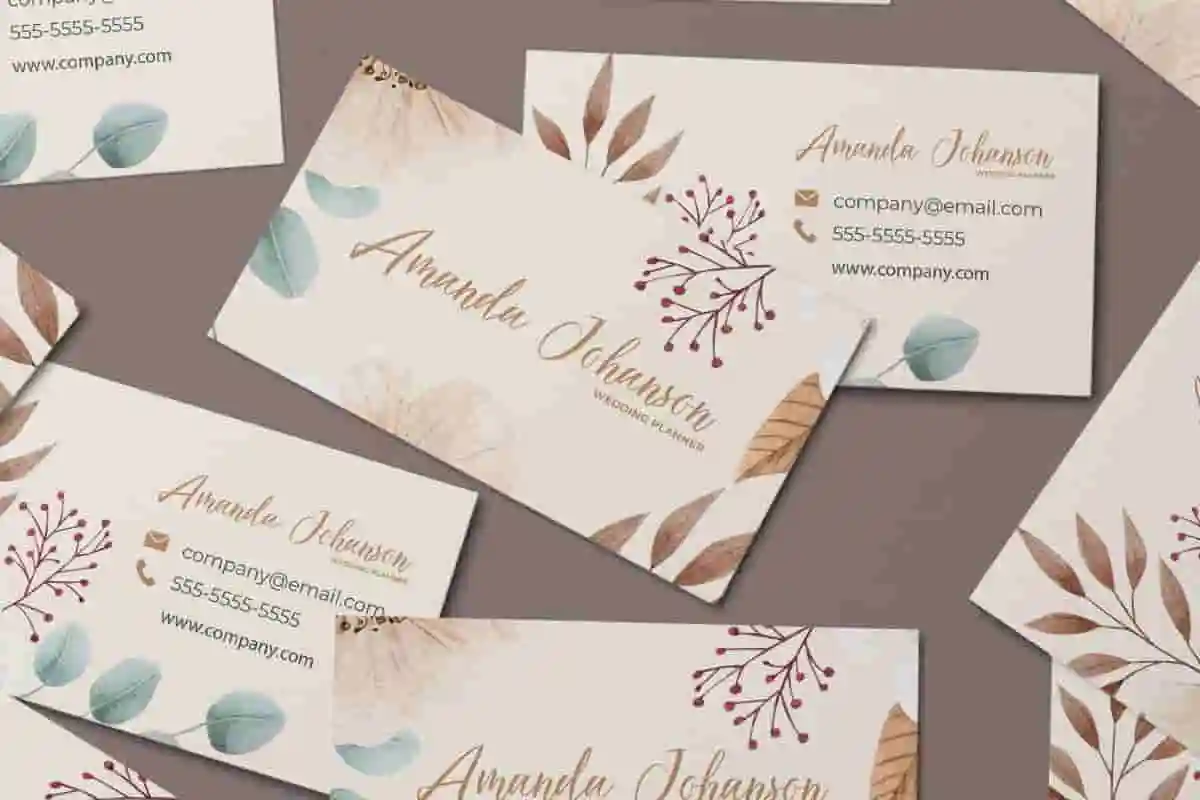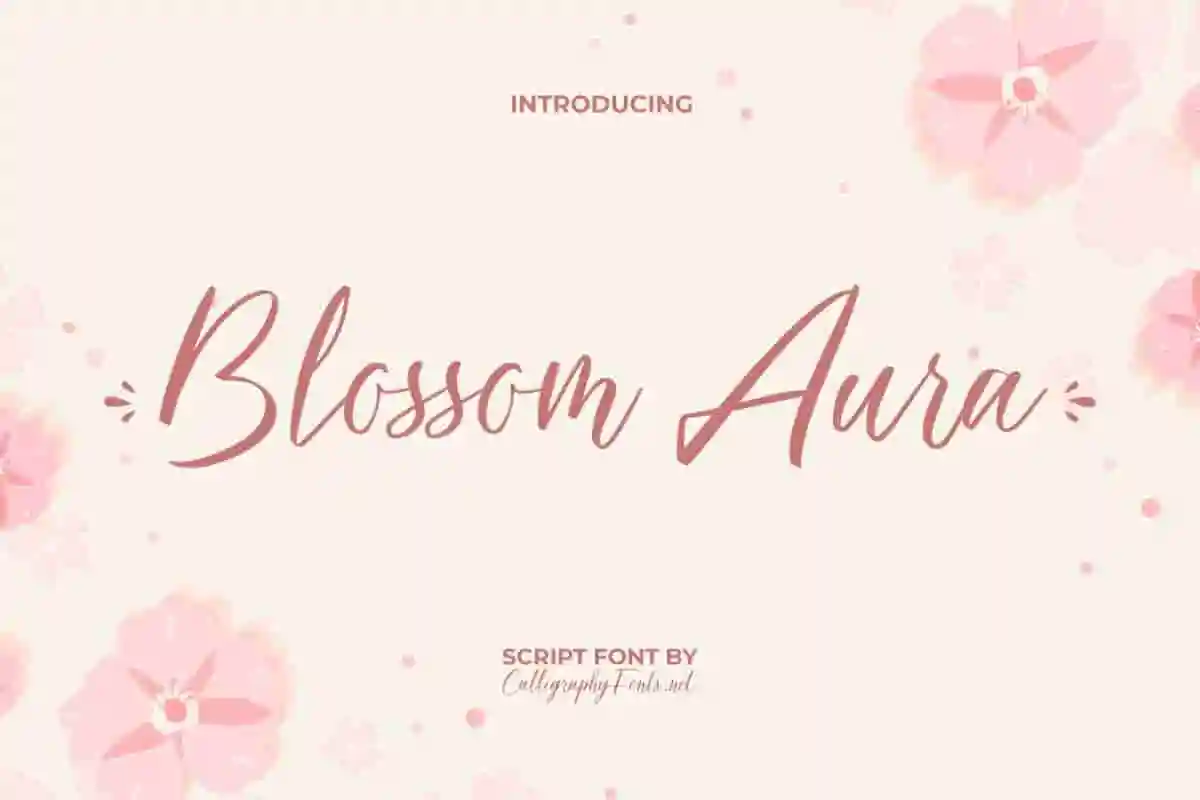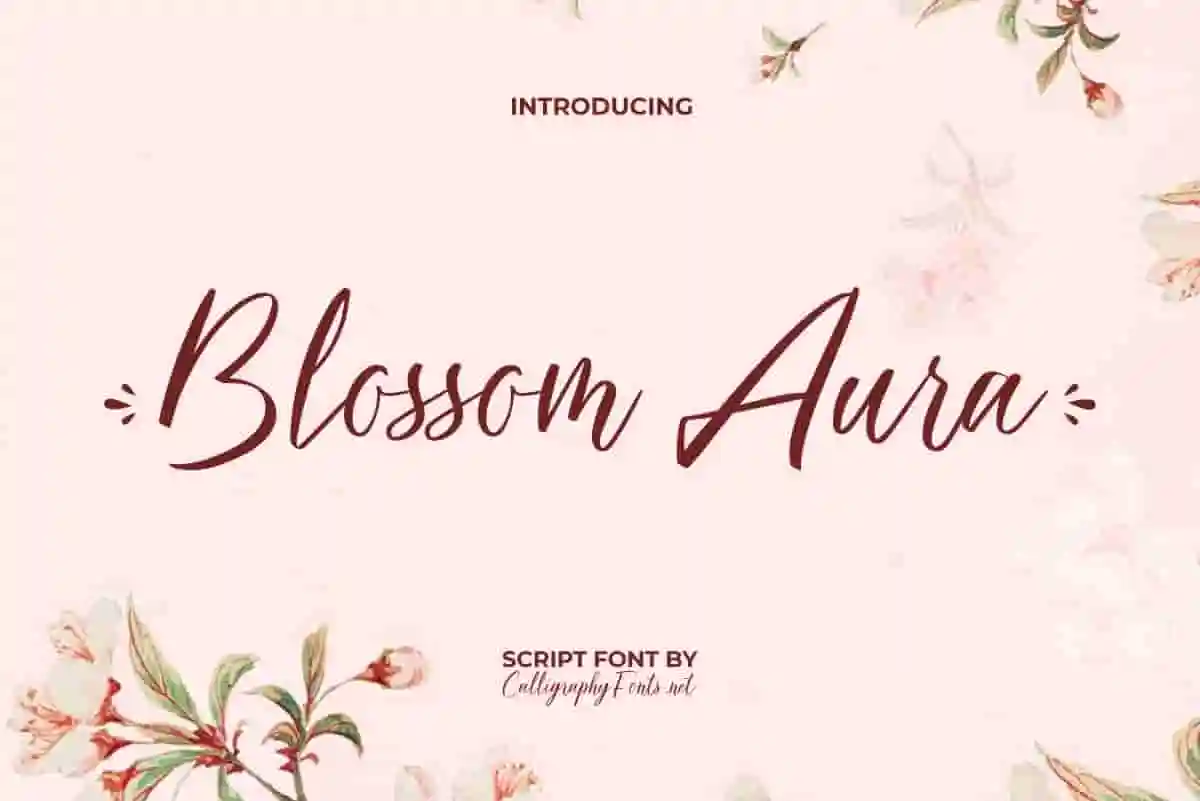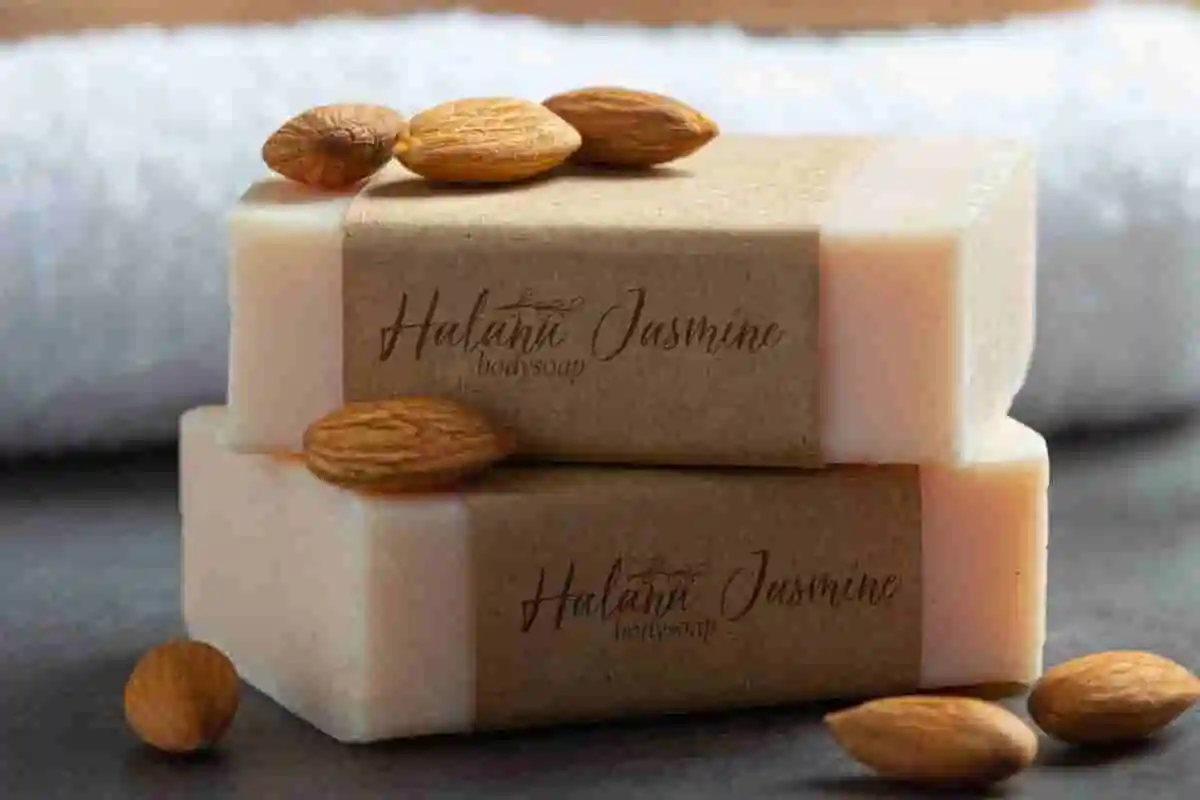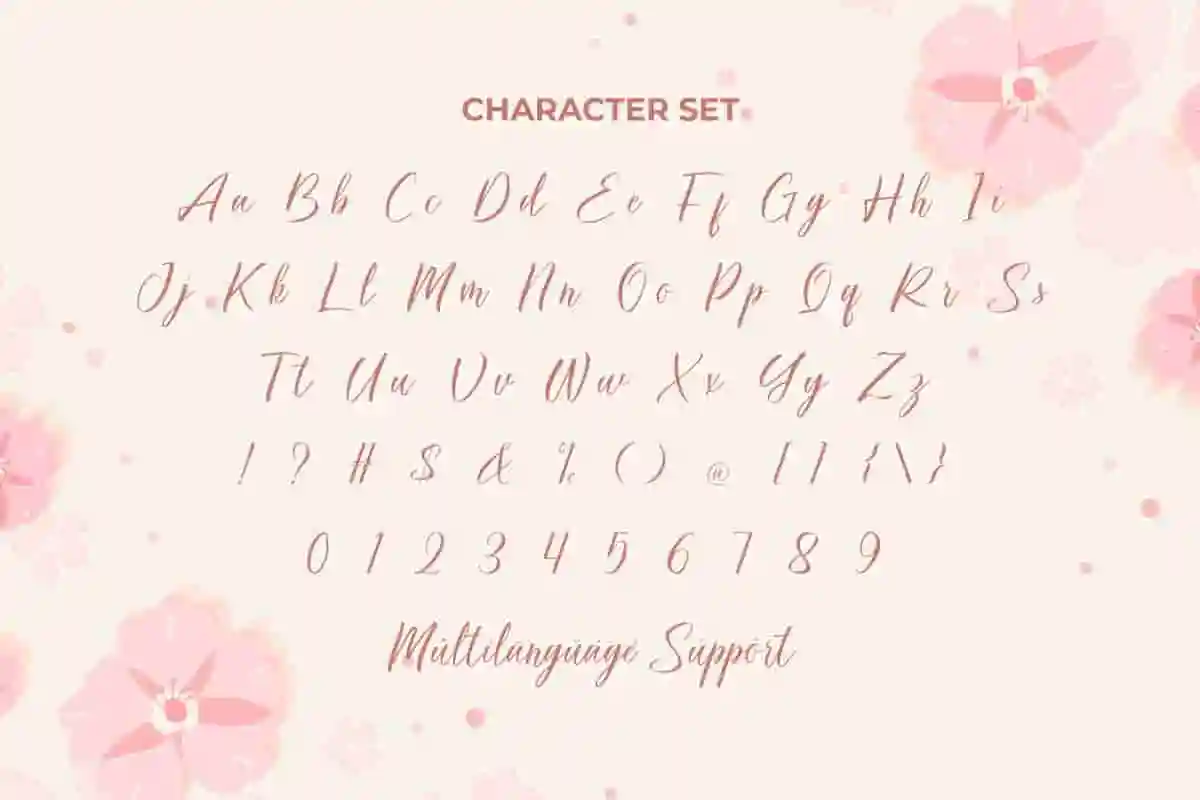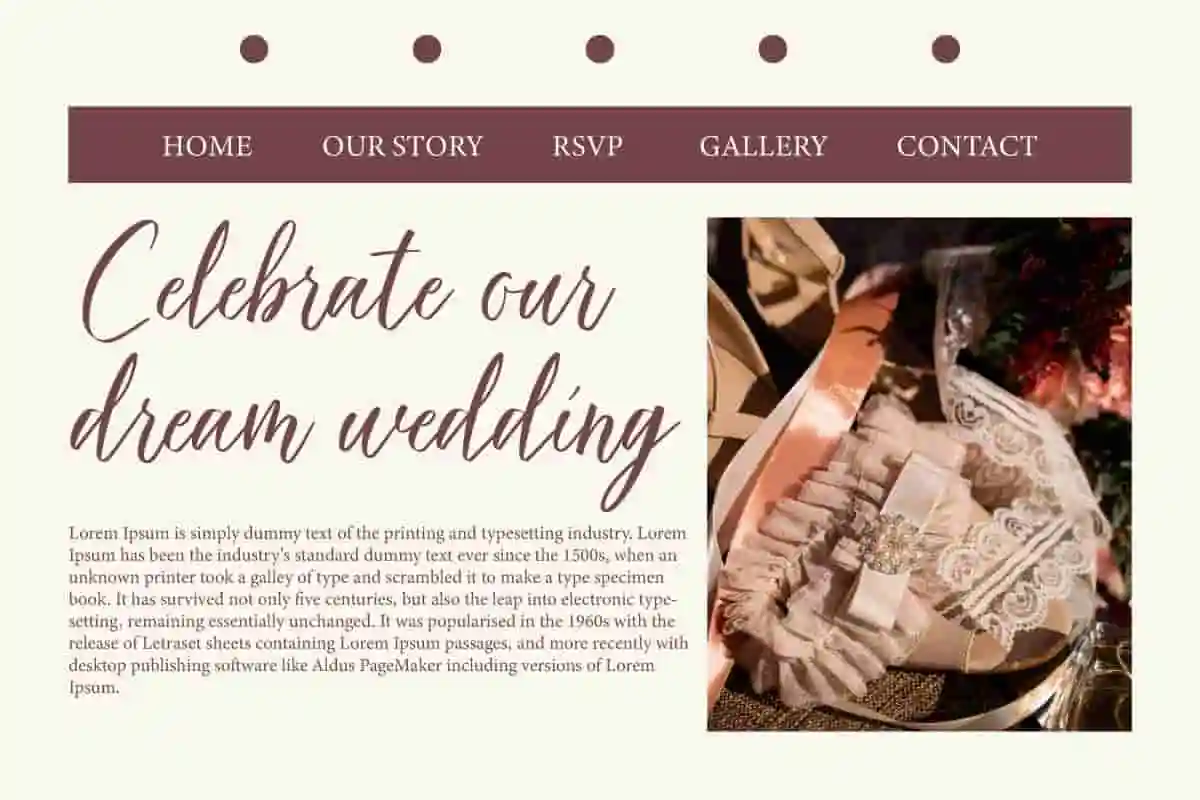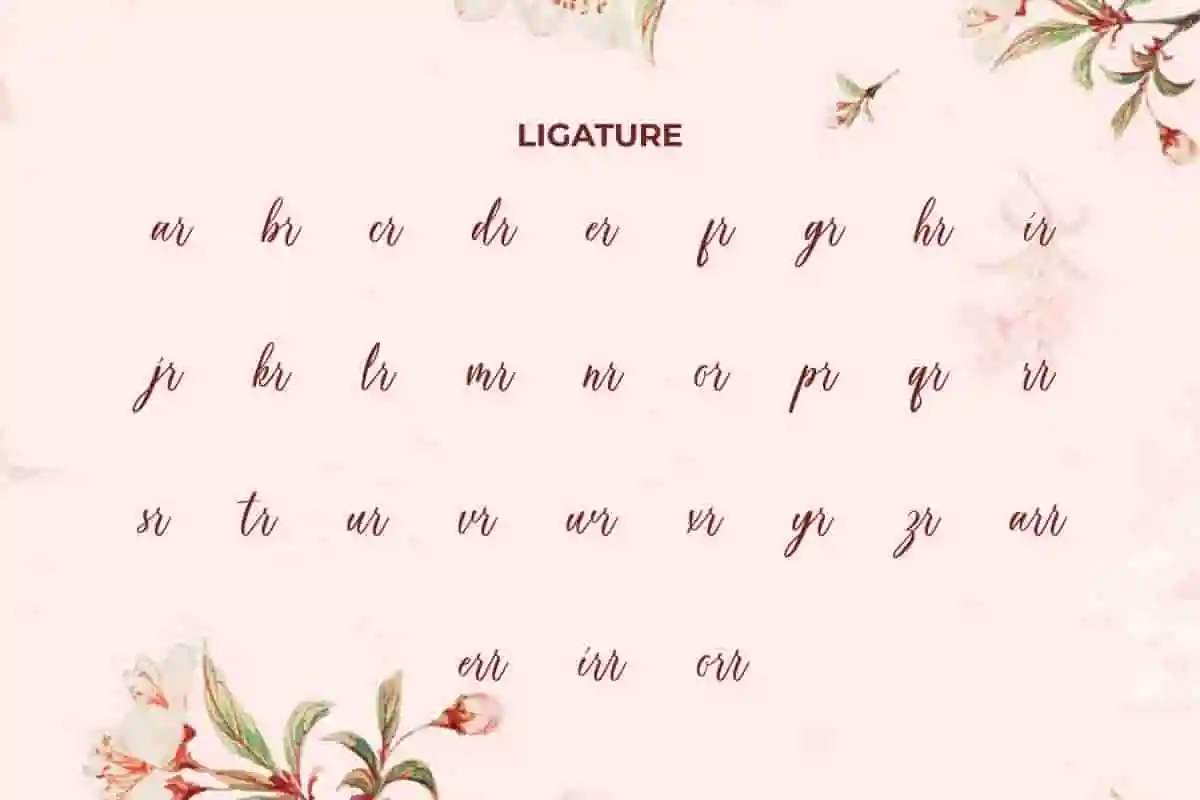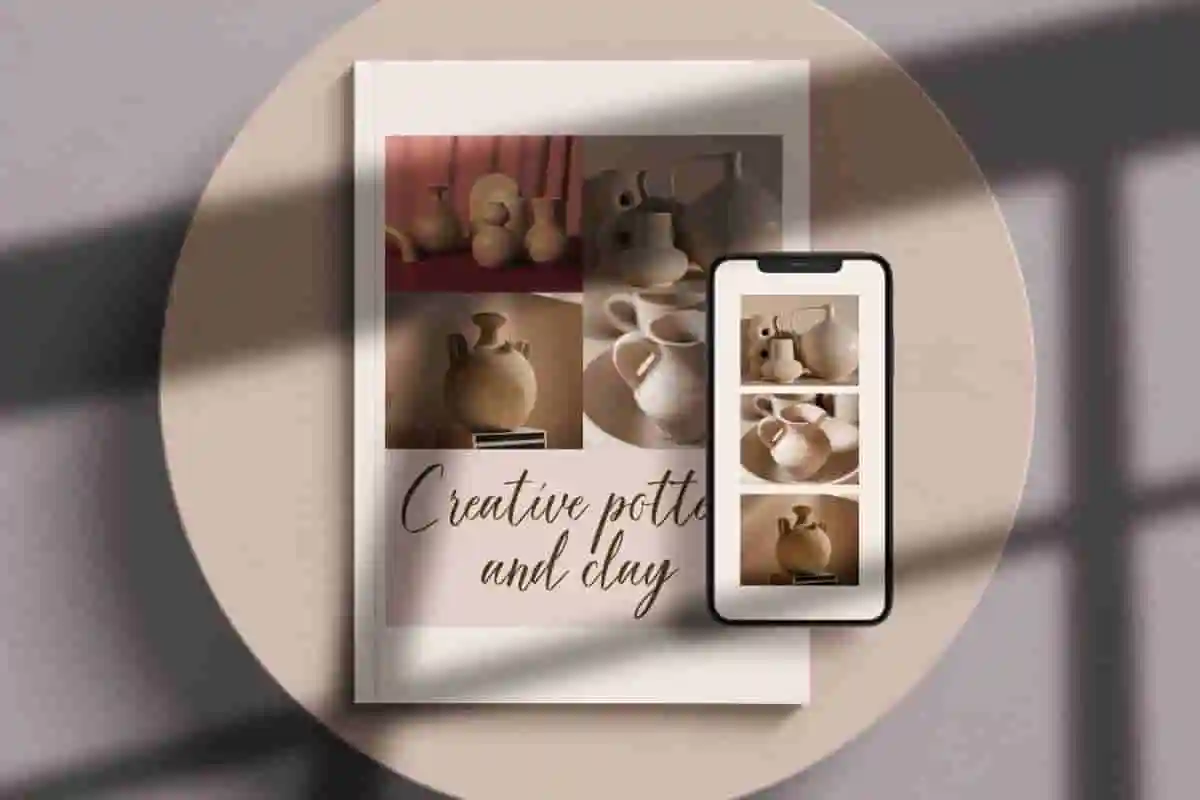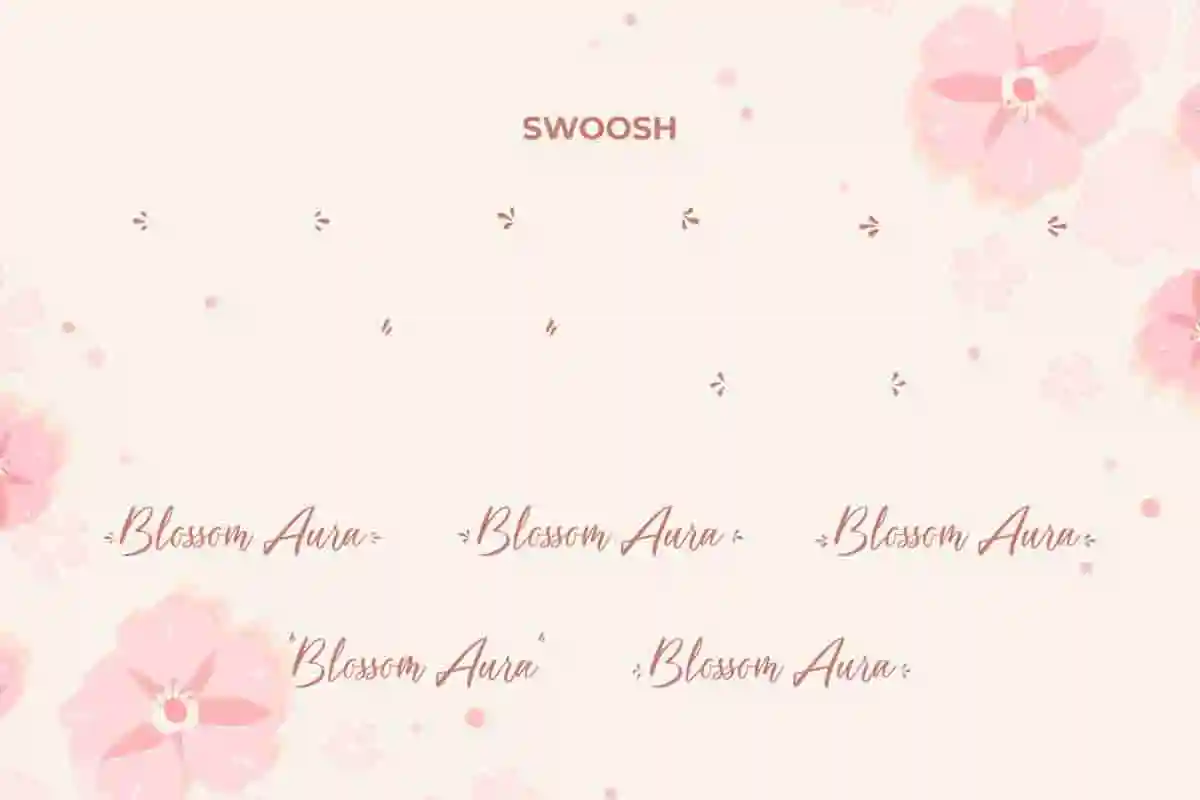
Blossom Aura Calligraphy Font
Blossom Aura Font is a delicate flowery script font. This modern typography with a casual and elegant style is suitable for greeting cards, handicraft, handmade soap, logos, packaging design, website, etc.
Blossom Aura Font is a relaxed and elegant script handwritten font inspired by beautiful calligraphy styles with a more alluring variety of ligatures and swooshes. It’s an excellent choice for adding a personal and artistic touch to your extraordinary projects. Perfect for apps, blogs, brand logo, brochure, business card, flyer, headers, invitations, mockup, product packaging, soap sleeve, stationery, template, title, website, and many more.
Say hello to Blossom Aura Calligraphy Font, a beautiful script typeface that captures the art of hand-lettered elegance. Designed with soft curves and fluid strokes, this font brings charm, grace, and a touch of romance to your creative work. Perfect for wedding invitations, personal branding, quotes, packaging, logos, and feminine blog headers, Blossom Aura is your go-to font when you want something heartfelt and refined.
Introducing Blossom Aura Calligraphy Font, a graceful and flowing script font designed to add beauty, elegance, and charm to your creative work. With its delicate curves and smooth strokes, this font is the perfect choice for wedding invitations, branding, social media, logos, and anything that calls for a personal, romantic touch.
Introducing Blossom Aura Calligraphy Font, a delicate and expressive script font that brings elegance, charm, and feminine beauty to your designs. With its flowing strokes and handcrafted details, this font is the perfect choice for wedding invitations, beauty branding, blog headers, logos, and heartfelt quotes.
• Elegant, flowing script
• Ideal for wedding stationery
Blossom Aura Font comes with a casual script look with irregular line thickness and makes it feel authentic and expressive. Capable of enhancing any of your works with a dynamic and lively appearance. Perfect for author, beauty product, bridal boutique, craft, fashion, graphic designer, photography, pottery, wedding, writer, and many more.